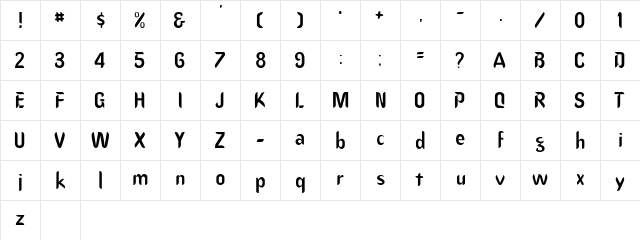
DanceSSK Regular Font Preview
DanceSSK Regular
DanceSSK Regular Font Details
Design Context for DanceSSK Typeface
DanceSSK is a composed and adaptable typeface that performs quietly and consistently across a wide range of design contexts.